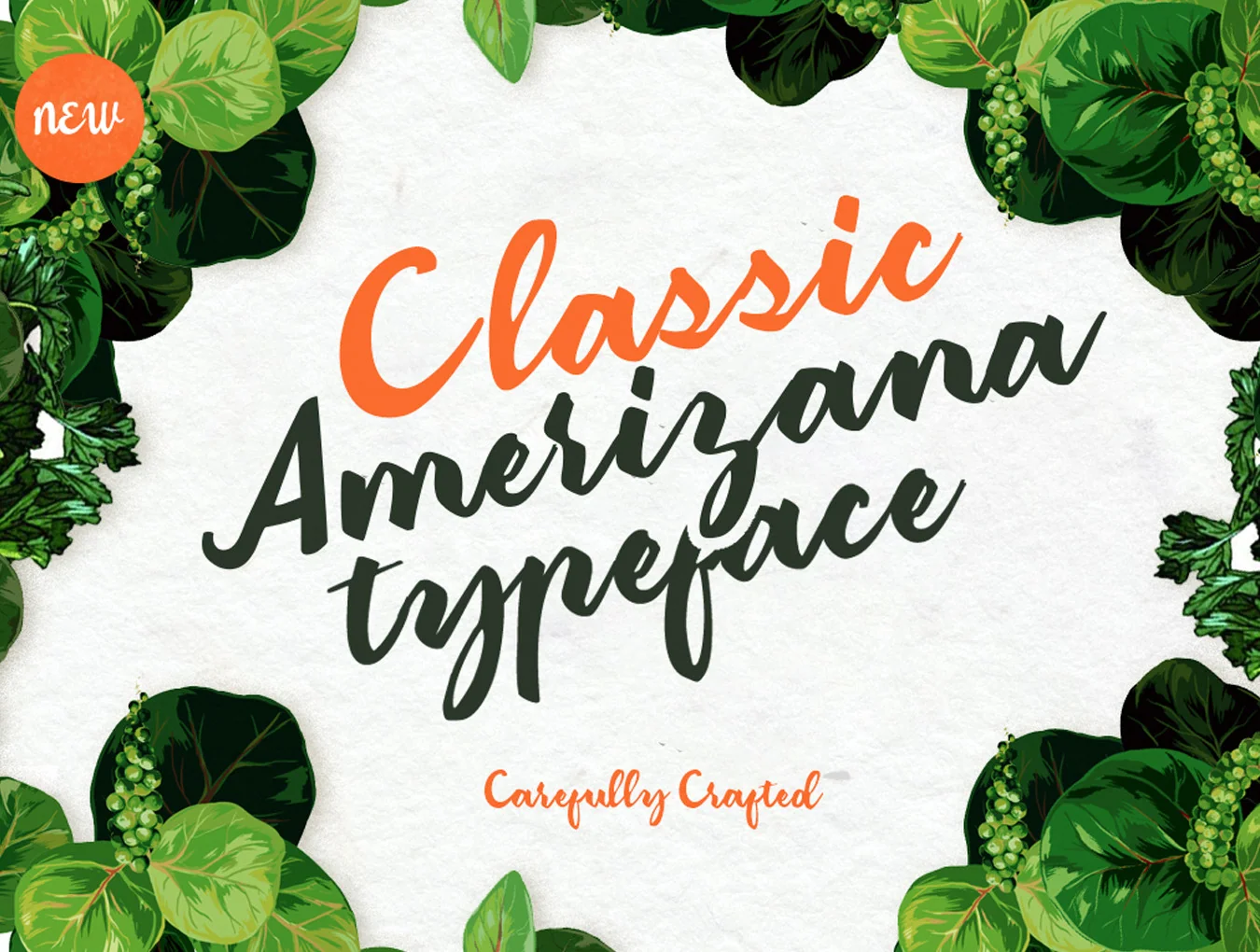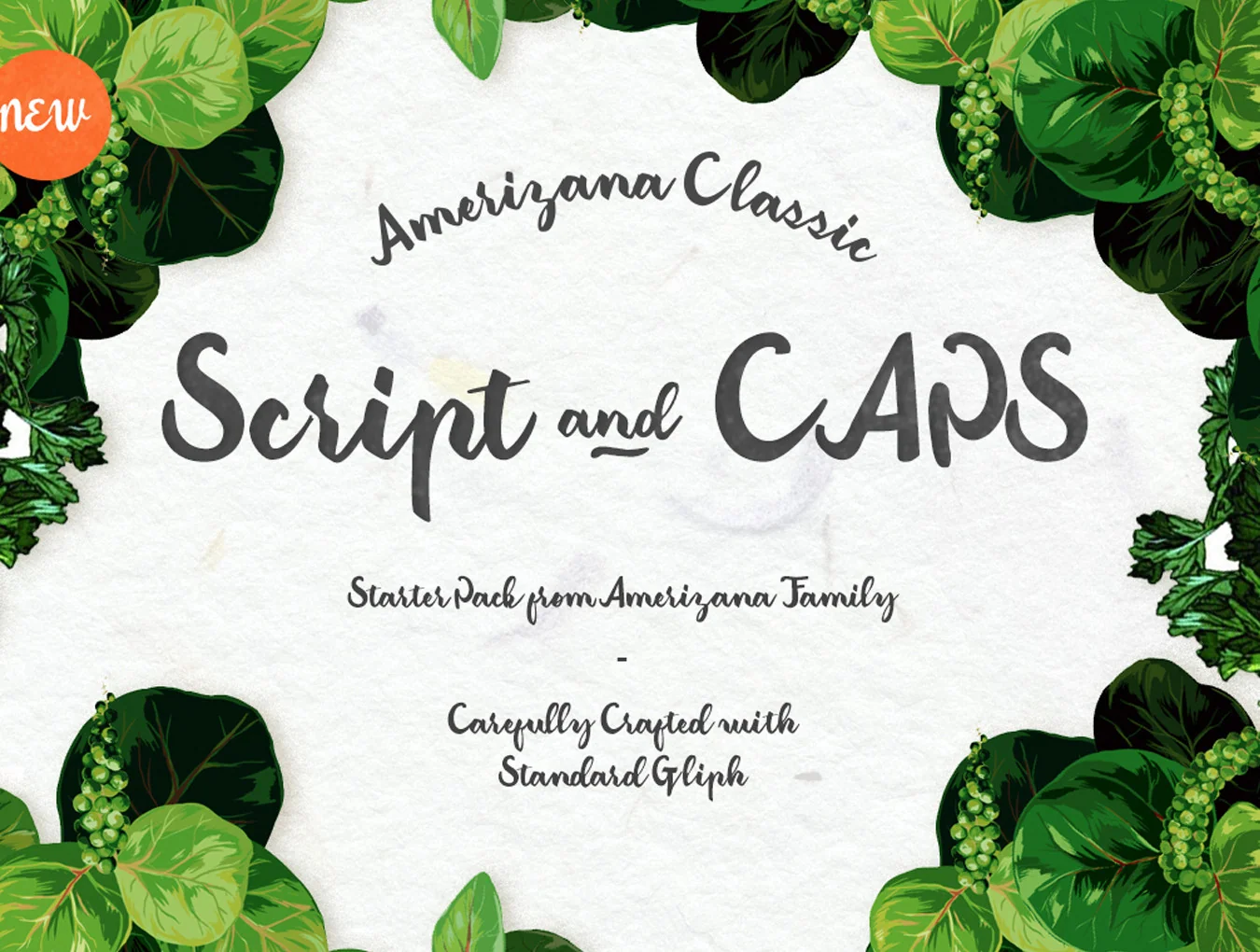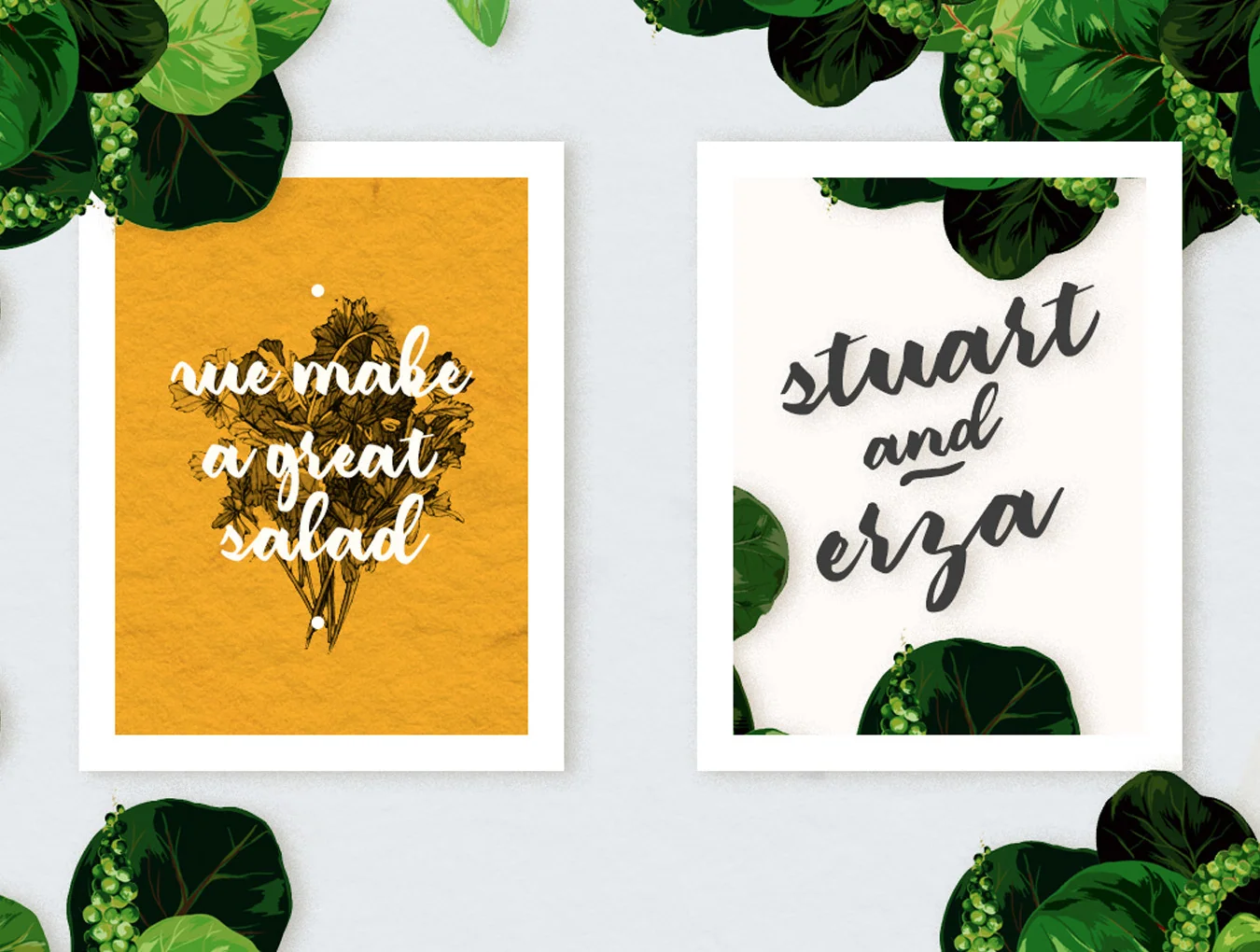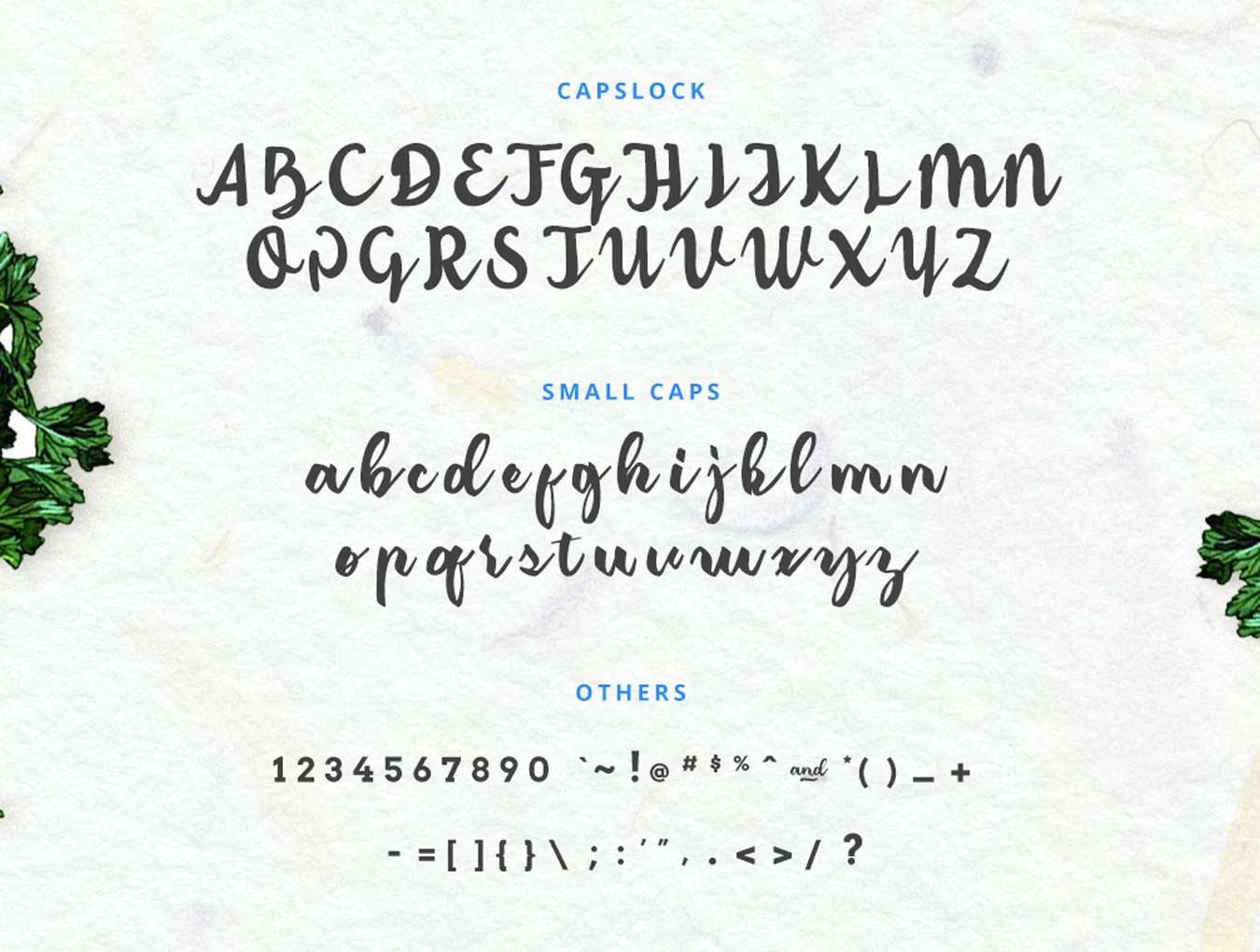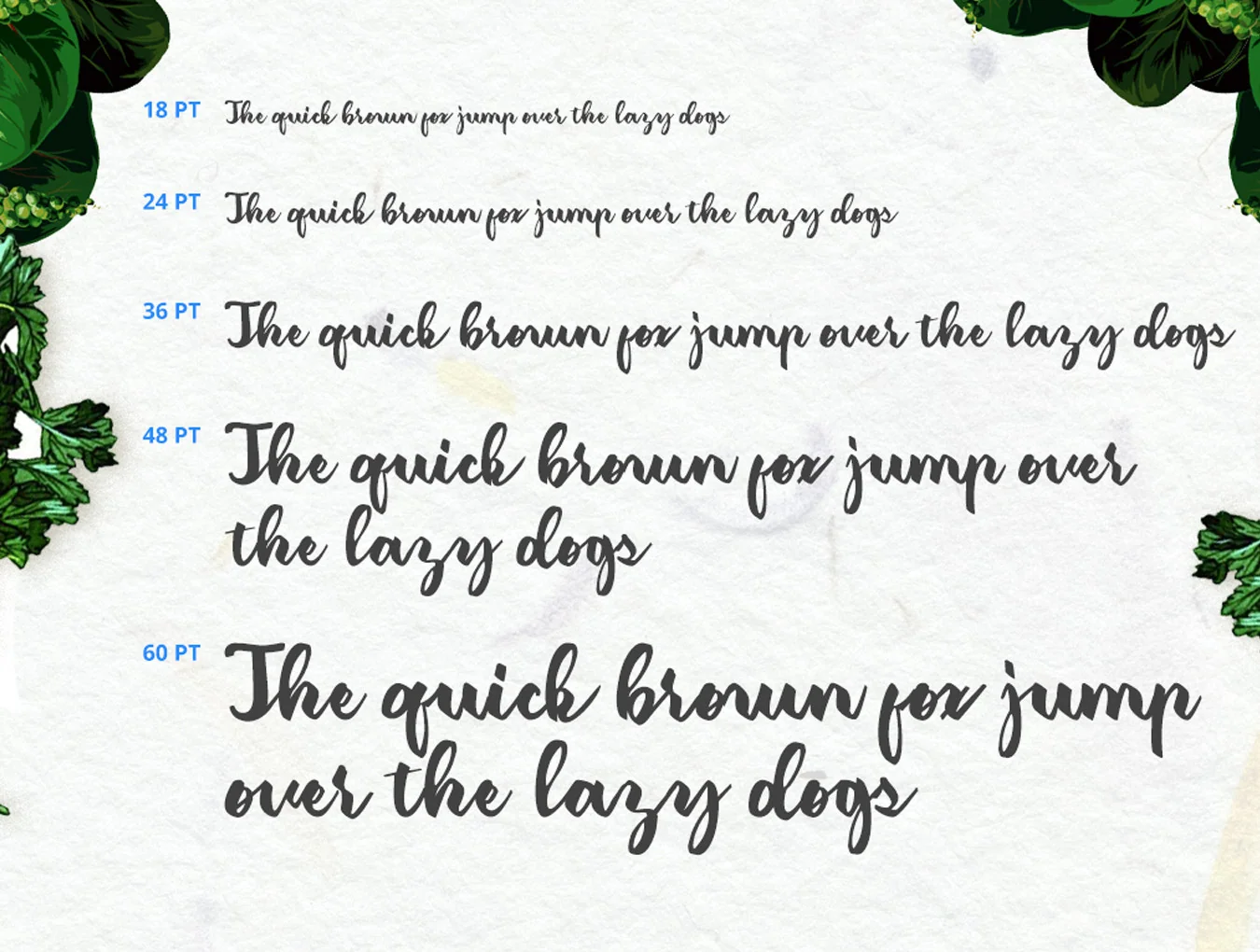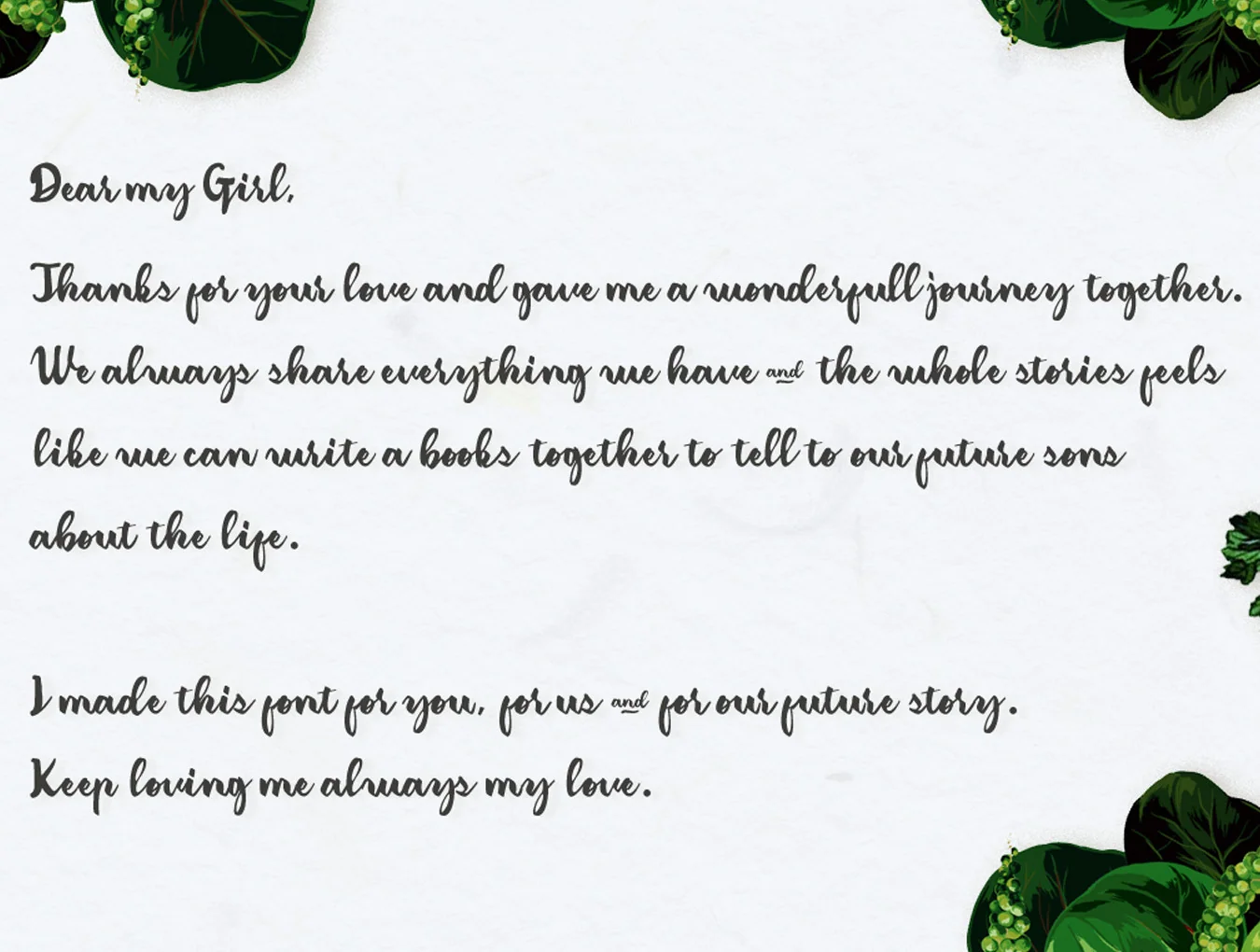
Classic Amerizana Regular Typeface
Introductory set from the Amerizana typeface family
Capital and small letters
Amerizana Regular is an introductory typeface in the Amerizana Font Family, combining capitals and script styles. Use it for book covers, stationery, promotions, magazines, film titles, logos, branding, posters, and other print designs.